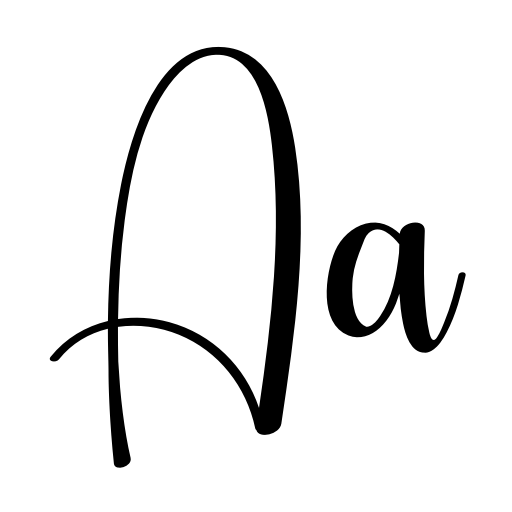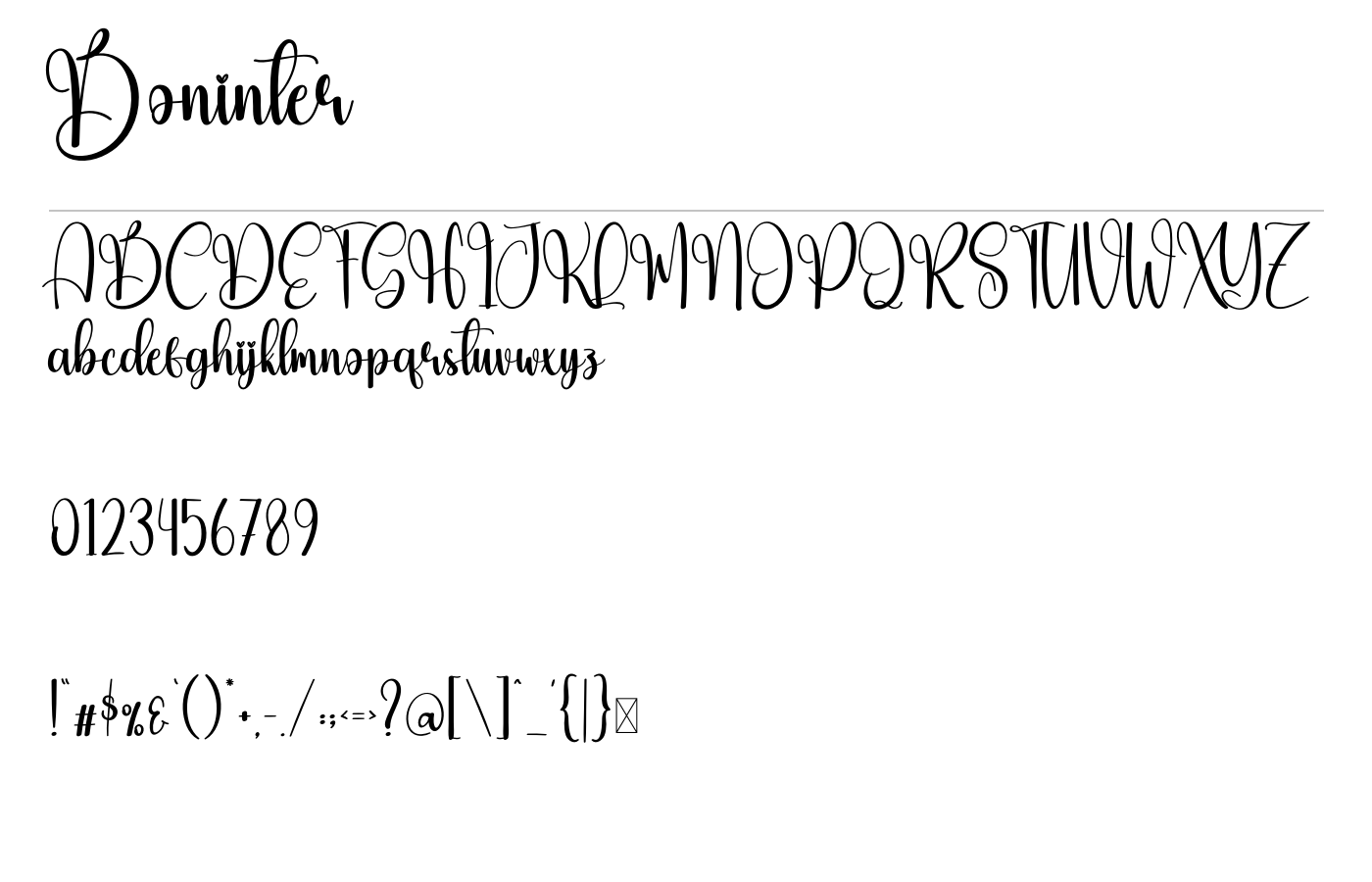
Boninter is a delicate and playful script font featuring tall, elegant letterforms with a whimsical touch, especially prominent in its flowing uppercase characters and charming lowercase styles. Its slender strokes and unique loops create a light, airy feel, making it perfect for feminine branding, invitations, and creative projects that seek a stylish yet approachable vibe. This font works beautifully in decorative headlines and logos where a personal, friendly impression is desired.
Boninter Font
About Boninter Font